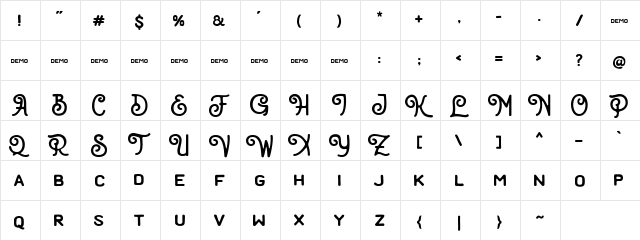
Clarkson demo Regular
Design Context for Clarkson demo Typeface
Clarkson demo is a composed and adaptable typeface that performs quietly and consistently across a wide range of design contexts.